Obtaining “Liberties” with Garalda
Liberties is a quarterly journal devoted to educating the general public about cultural trends, politics, and possibilities.
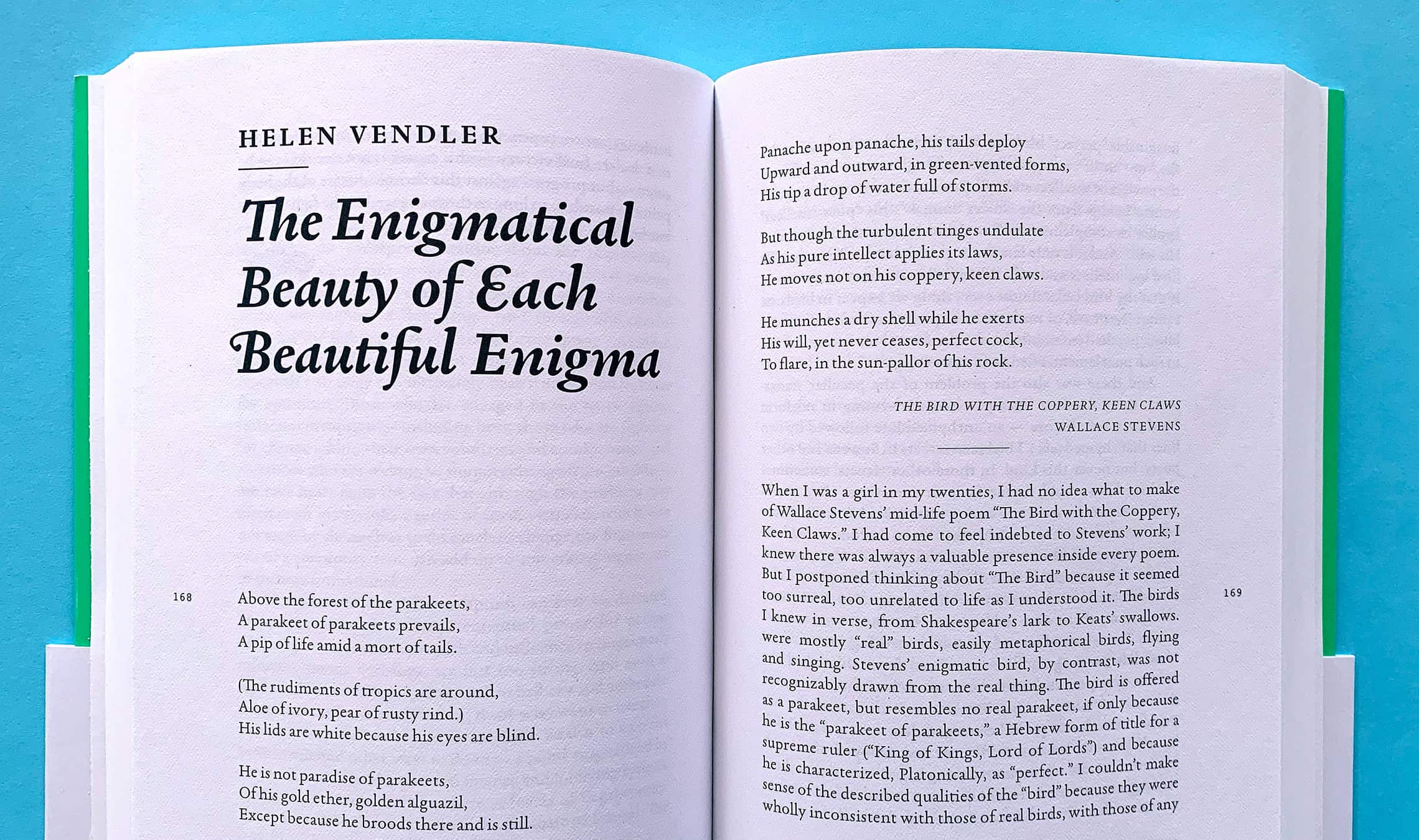
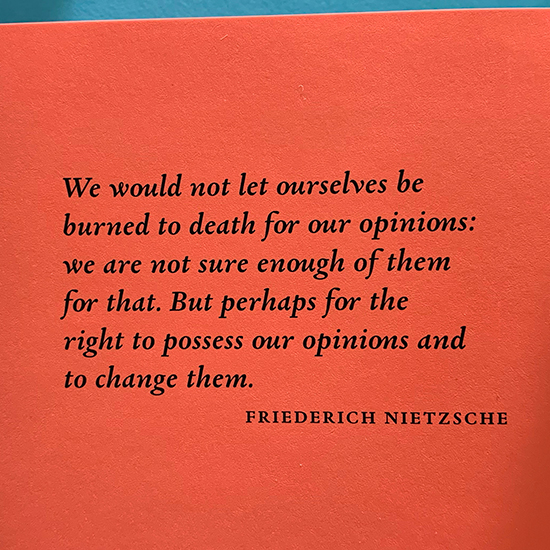
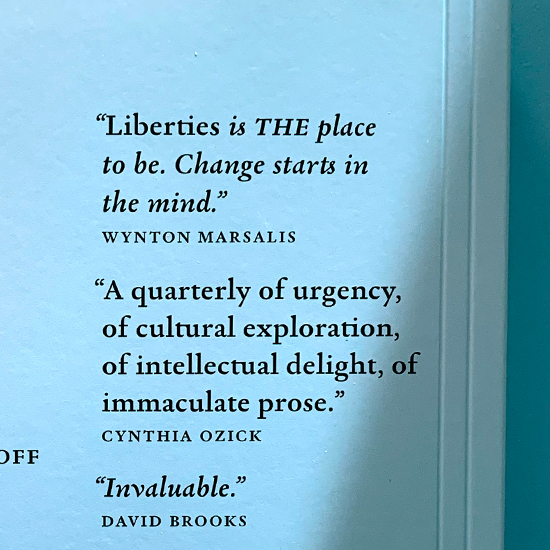
Liberties, a quarterly journal of culture and politics based in Washington, DC, is devoted to educating the general public about the history, current trends, and the possibilities of culture and politics.
As the designer behind the publication, William van Roden chose Xavier Dupre’s Garalda family as the identity and design voice. Garalda is not only used on the website and social media, it takes center stage in the printed publication with its easily-read text, swash alternates, and striking details when enlarged.
Van Roden explains his choice of Garalda: “We explored a handful of serif fonts for the journal. We wanted a smart serif that had classicism as well as modernity, and we had Garamond in the mix as a kind of exemplar. The design is obviously classic, but it also felt a little tired and overused for this project. After comparing a few different font families, Garalda offered a much more vibrant alternative to the familiar Garamond. After testing sizes and weights, I was able to permeate the system with small bold caps, bold italics, and book weights.”
“Liberties uses an insignia on the cover and other locations,” says van Roden. “This insignia was initially derived from details in Bottocelli’s drawings for Dante’s Divine Comedy, which were executed between 1480 and 1495. With Garalda, there are gorgeous alternate swash options for the capital letters. These alternate glyphs align well with the flare and beauty of the insignia. And in the lowercase italics, I love the sexy ‘w’ and ‘y’ letters! For us, Garalda works hard, reads well, and looks elegant.”
Garalda is a charming family that renews a legacy of finesse. Its workaday personality encourages easy long-form reading, but this reinvented Garamond is certainly not basic. Garalda is an humanist slab serif, but with a mix of angles and curves to give the classic shapes a fresh, unorthodox feeling. While almost invisible in paragraph text, these produce a graphic effect in display work, resulting in a contemporary family with rich heritage.